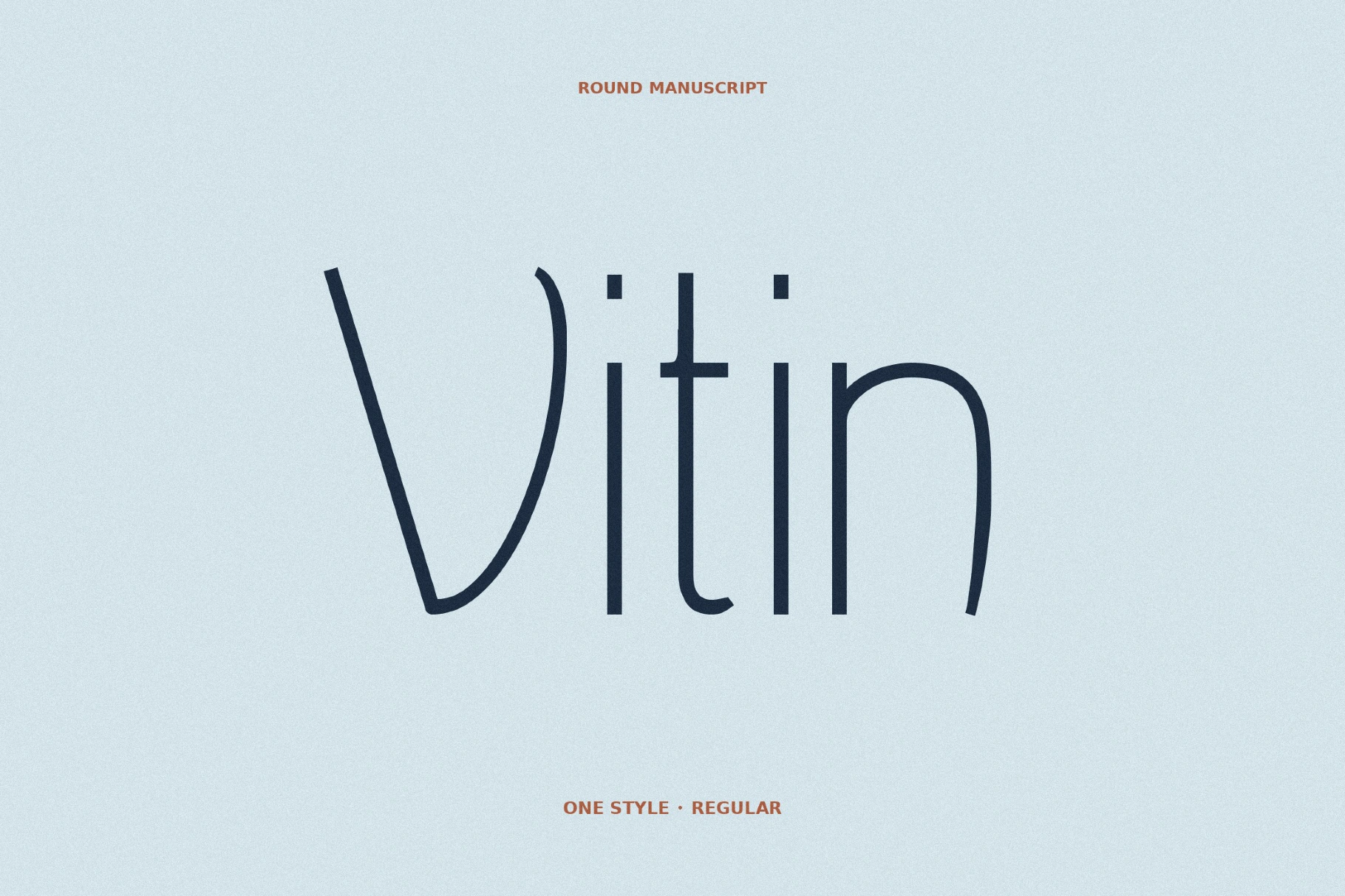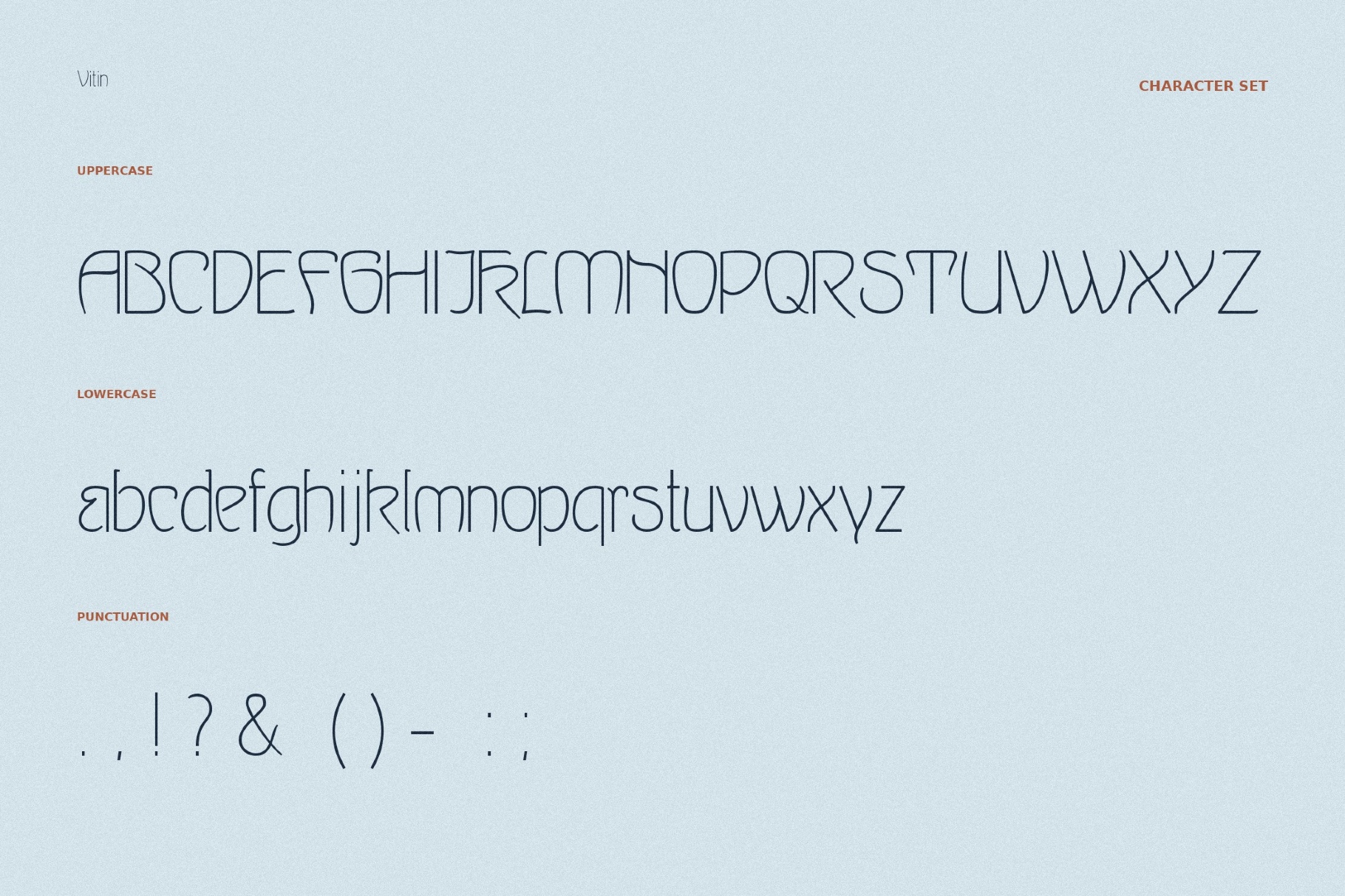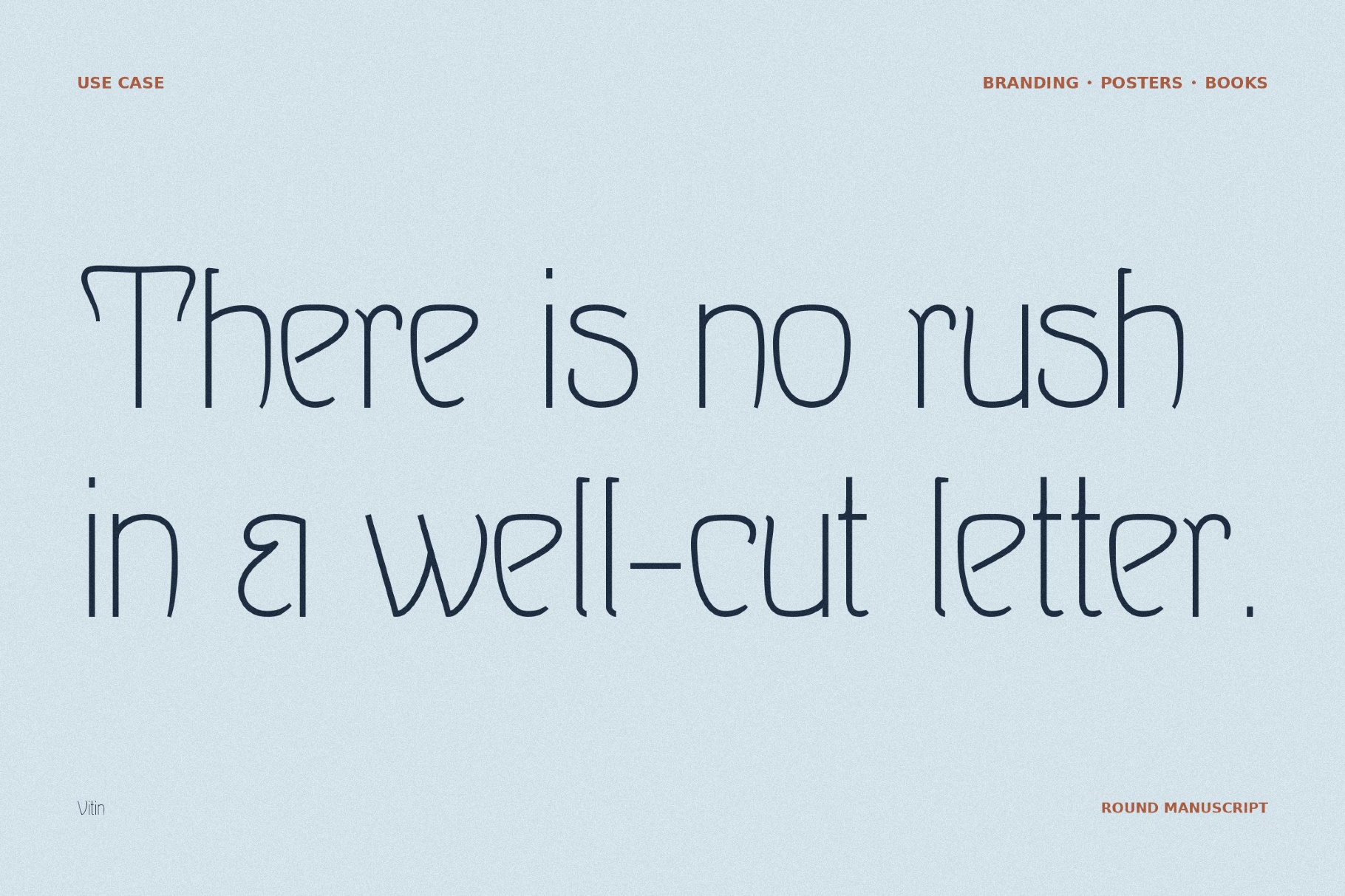
Vitin - Free Art Nouveau Font
vitin
Vitin draws a slender, handwritten sans serif with elegant Italian pacing and eccentric letterforms, like architectural wayfinding and mid-century European poster lettering. Its airy human rhythm suits restaurant identities, travel guides, boutique packaging, stationery, editorial layouts, cultural posters, social media graphics, lifestyle branding, and art event materials.